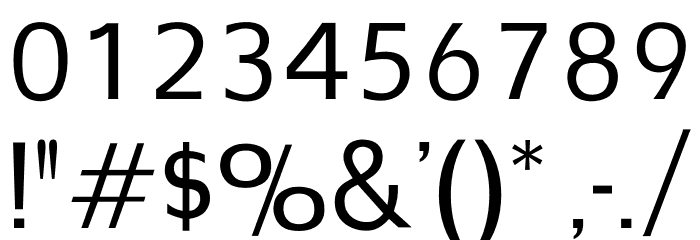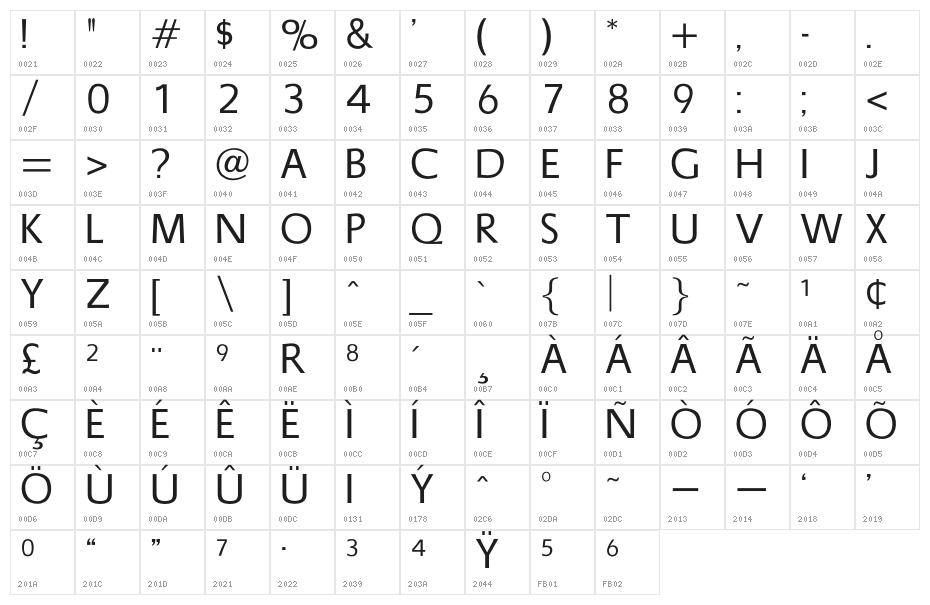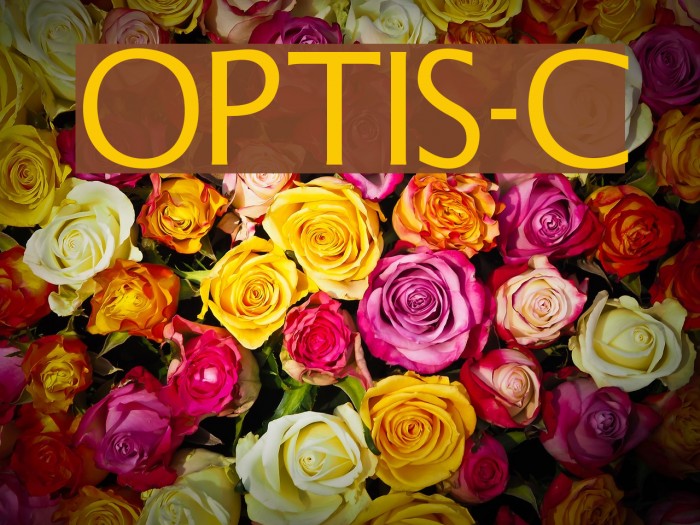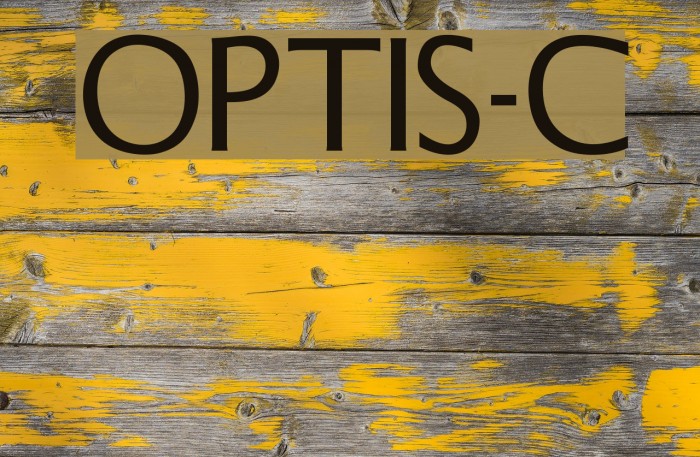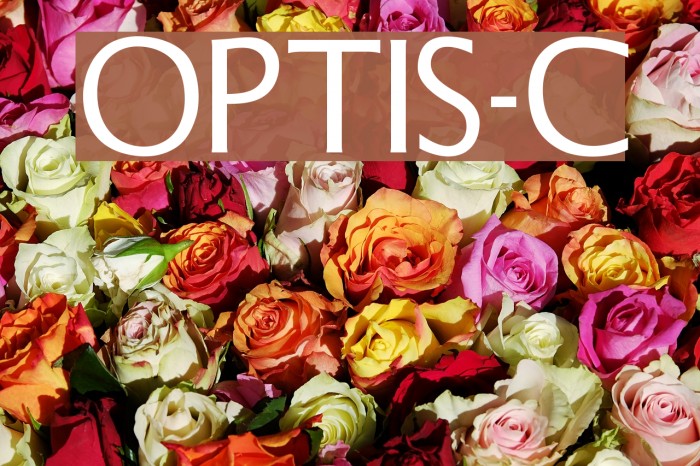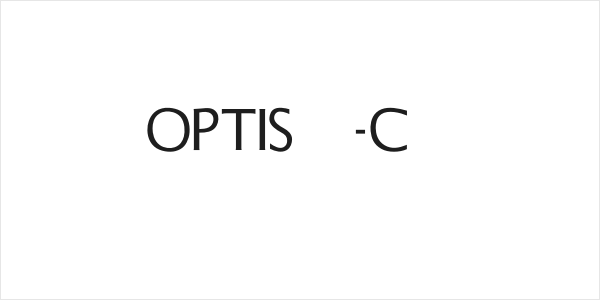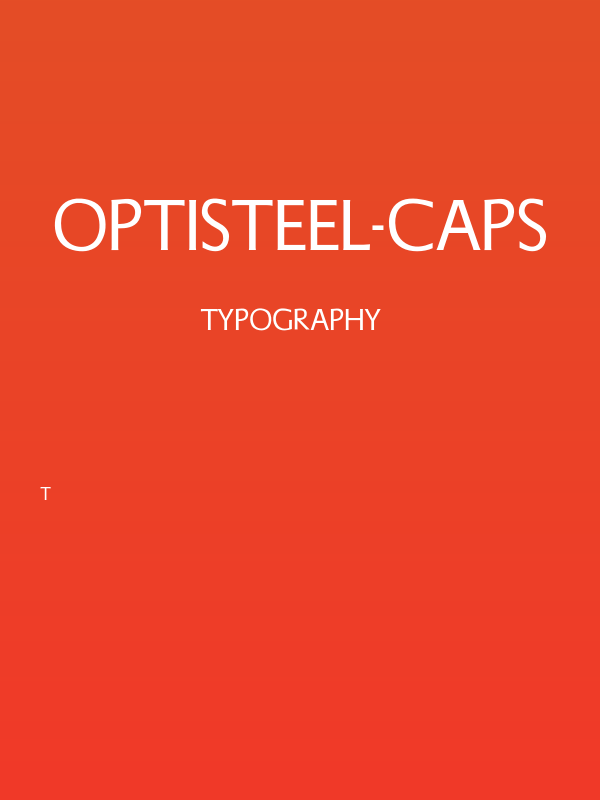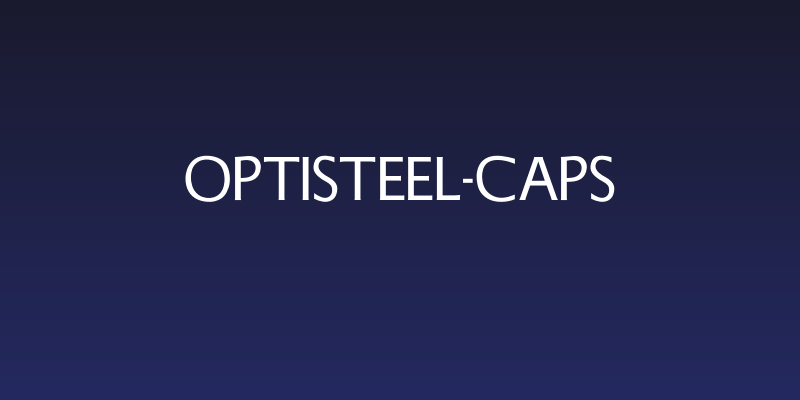
OPTISteel-Caps Font
OPTISteel-Caps Description
This font features a clean and modern sans-serif design with a geometric structure. The characters are evenly spaced, providing a balanced and harmonious appearance. The uppercase letters are bold and commanding, making them ideal for headlines and attention-grabbing text. The numerals and special characters maintain the same geometric style, ensuring consistency across all uses. The font's simplicity and clarity make it versatile for various design projects, from digital to print media.
| Use Case | Headlines, Logos, Digital interfaces |
| Proposed Projects | Ideal for branding, advertising, headlines, and digital interfaces. |